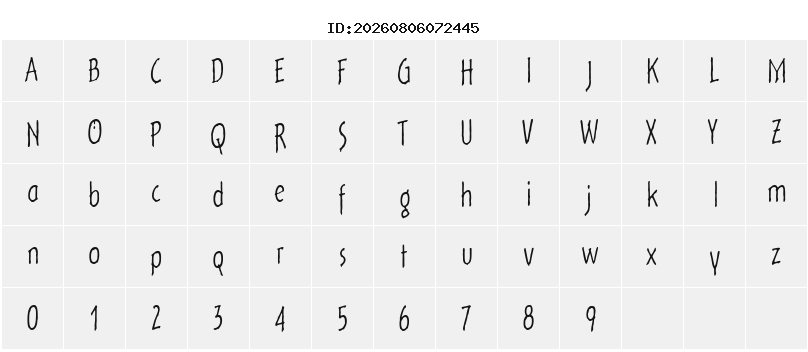
About Out of the Fridge ITC.ttf
Out of the Fridge ITC.ttf is a modern, elegant sans-serif font designed for ultimate readability and visual harmony. Perfect for branding, headlines, web design, and print materials.